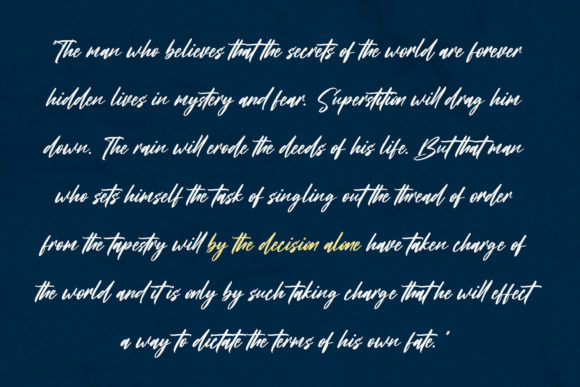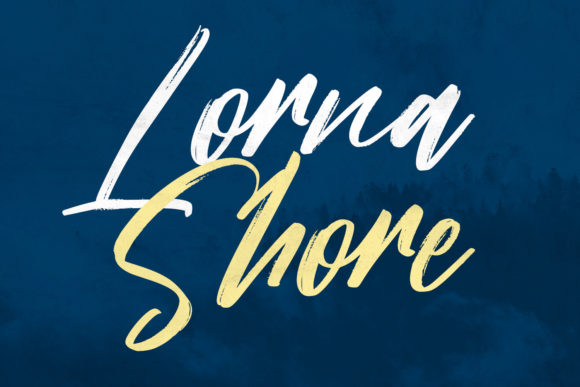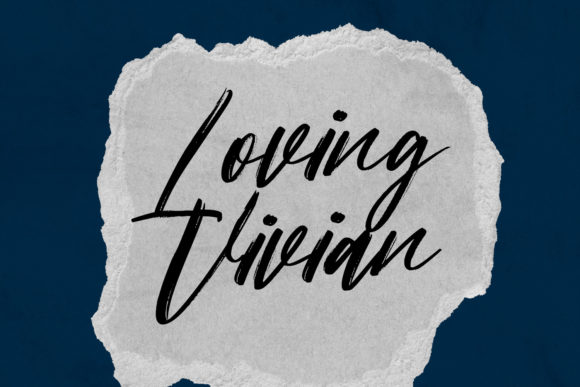
Introduction to Mitoda Reels Font
Mitoda Reels is a flowing and brushed handwritten font, described by an elegant touch.
Mitoda Reels Font offers exceptional quality and versatility, making it a valuable addition to your design toolkit. Whether you’re creating for personal projects or commercial use, Mitoda Reels Font delivers professional results.